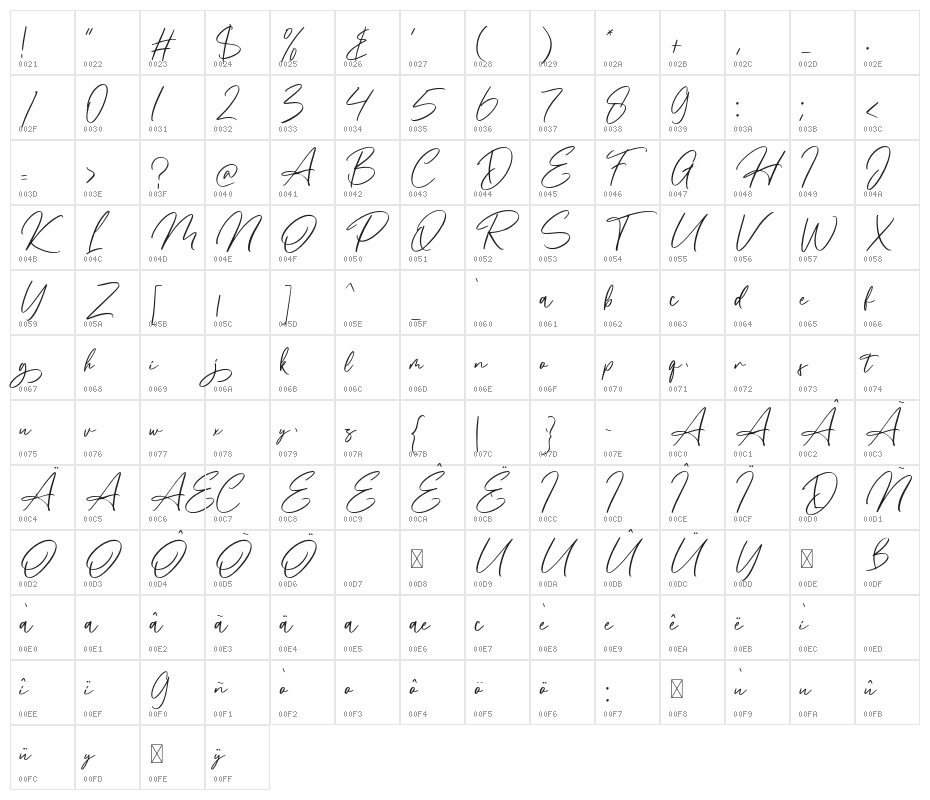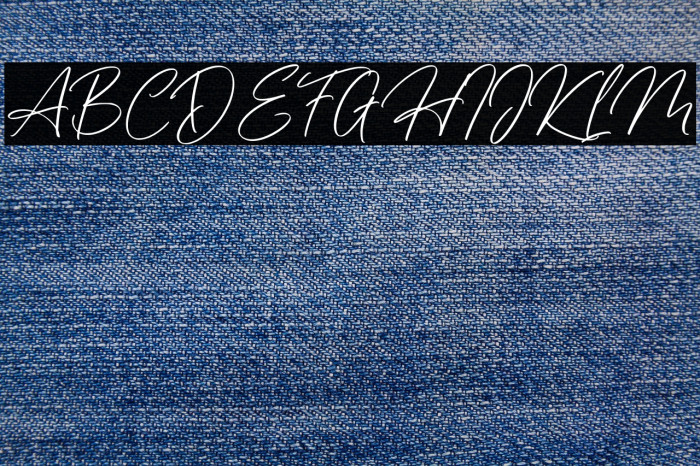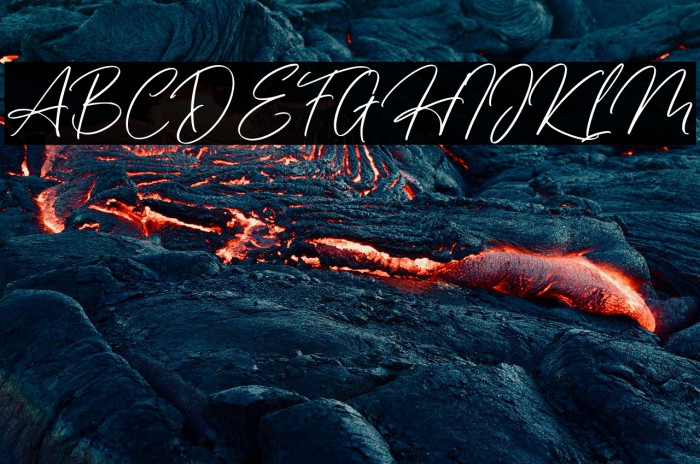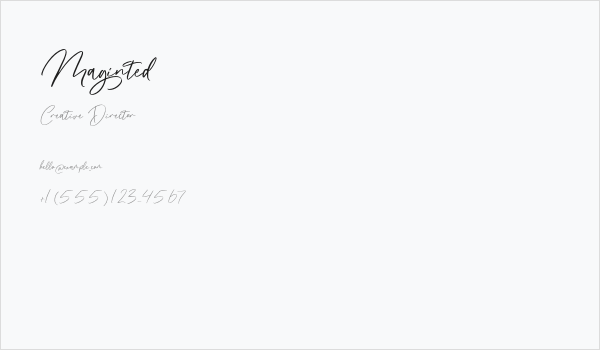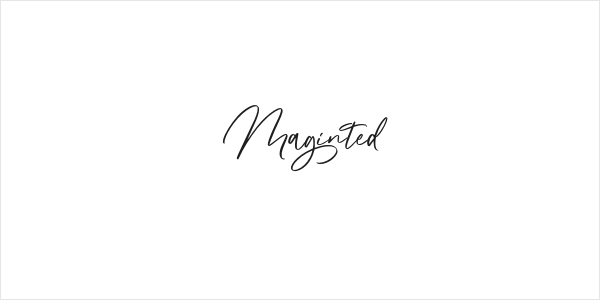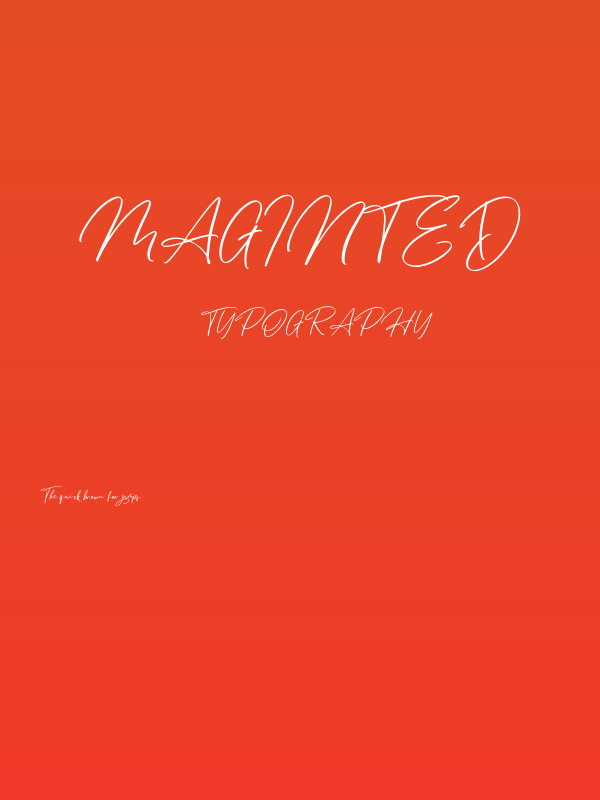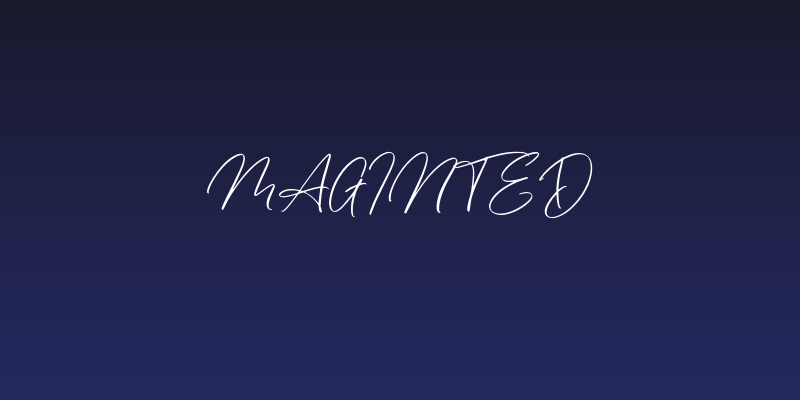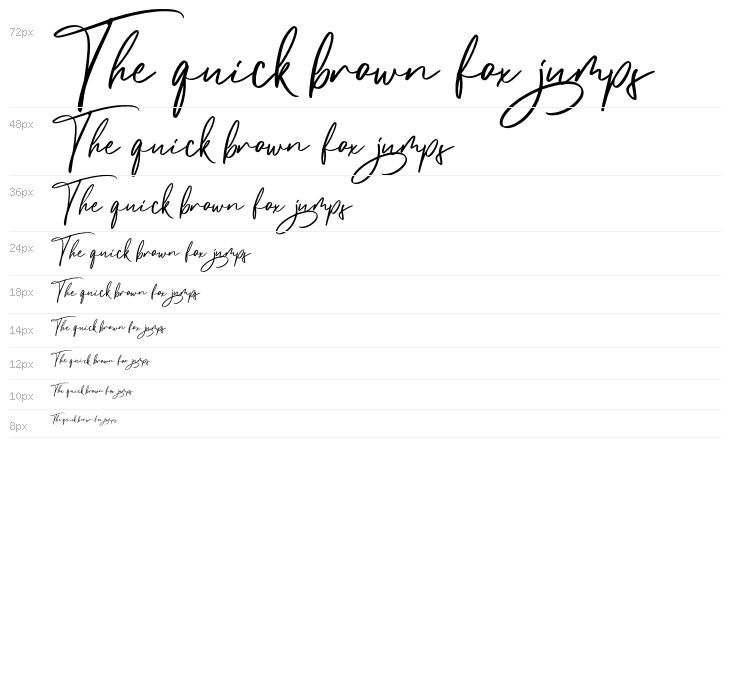
Maginted Font
Maginted Description
This elegant script font features a flowing, cursive style that mimics natural handwriting with a touch of sophistication. The uppercase letters are tall and graceful, with sweeping curves and loops that add a sense of movement and fluidity. The lowercase letters maintain a consistent style, with smooth connections between characters that enhance readability. Numbers and special characters are designed to complement the overall aesthetic, maintaining the same elegant and flowing style. This font is perfect for projects that require a personal touch, such as invitations, greeting cards, and branding materials.
| Overall Style | Elegant, Handwritten |
| Use Case | Headlines, Invitations, Branding |
| Proposed Projects | Ideal for wedding invitations, greeting cards, personal branding, and elegant logos. |